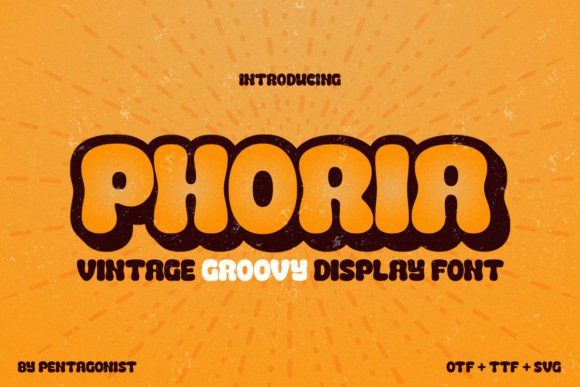
Step back in time and embrace the groovy vibes of the '70s with Phoria, the ultimate retro display font that will ignite your creative spark. Inspired by the disco era, Phoria takes you on a nostalgic journey with its bold, curvy lines and unique geometric shapes. Unleash your inner artist and let Phoria's vibrant colors and energetic style transform your designs into masterpieces.
With Phoria, you'll capture the essence of the past while adding a modern twist to your projects. Its retro charm is perfect for creating eye-catching logos, Instagram posts, posters, and more. Picture your designs adorned with Phoria's funky letters, oozing with personality and making a statement wherever they go.
Phoria is more than just a font; it's a portal to a bygone era. As you type, you'll feel the groovy rhythm of the '70s flowing through your fingertips. Its vintage aesthetic will add a touch of nostalgia and warmth to your creations, evoking memories of simpler times.
- Retro-inspired letterforms with bold, curvy lines
- Unique geometric shapes and vibrant colors
- Perfect for logos, Instagram posts, posters, and more
- Captures the essence of the '70s disco era
- Adds a touch of nostalgia and warmth to your designs